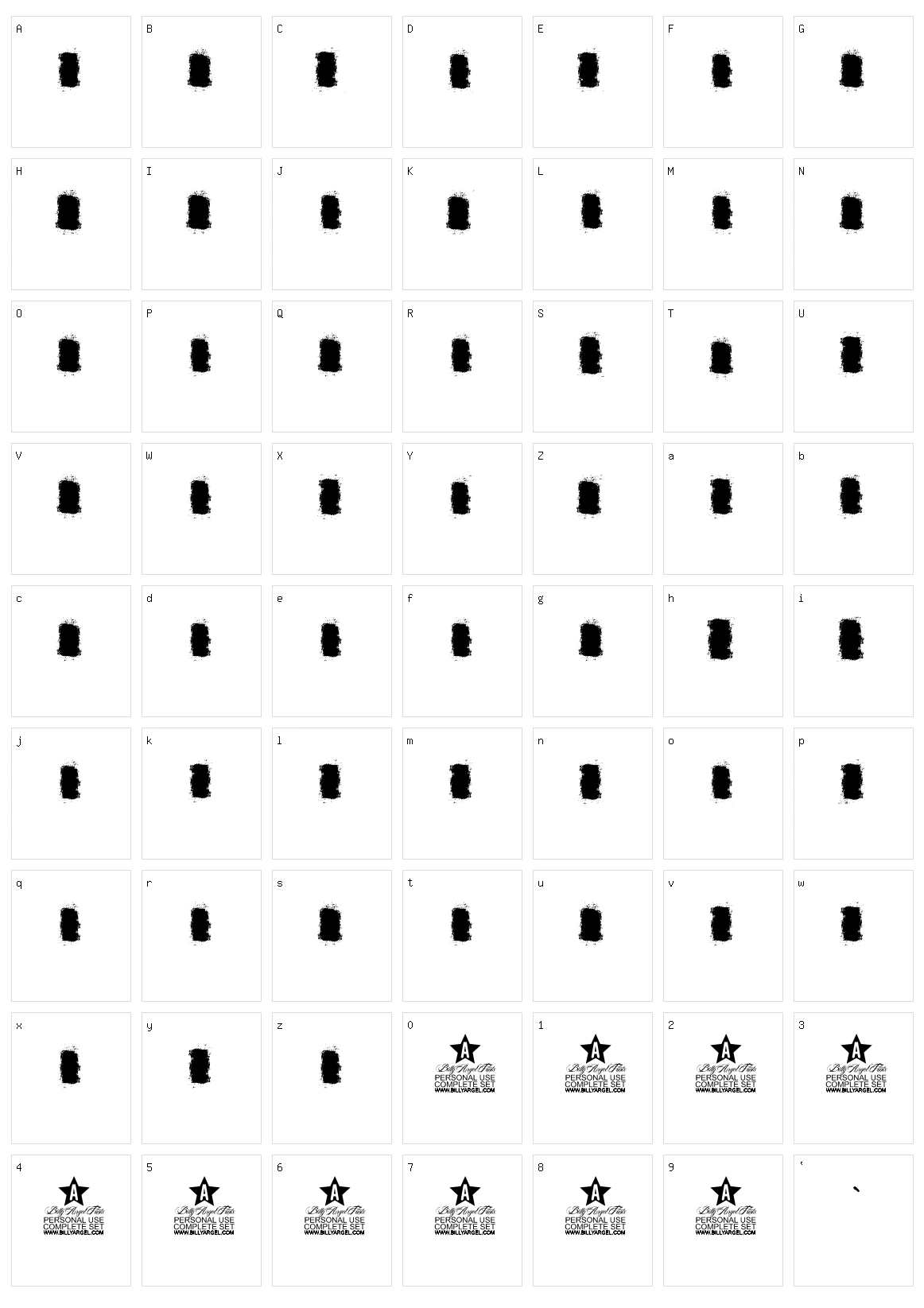
The free font Trip Denied is carefully designed by Billy Argel Fonts ®, showcasing a thoughtful balance of creativity and usability and falls under the Destroy font style. When you download the ZIP file, it contains only 1644.22 KB of font files, making it lightweight and quick to download. Please review the license details below to understand permitted usage and distribution rights. If license information is not available, we recommend using this font for personal projects only or contacting the author directly for commercial usage permissions.